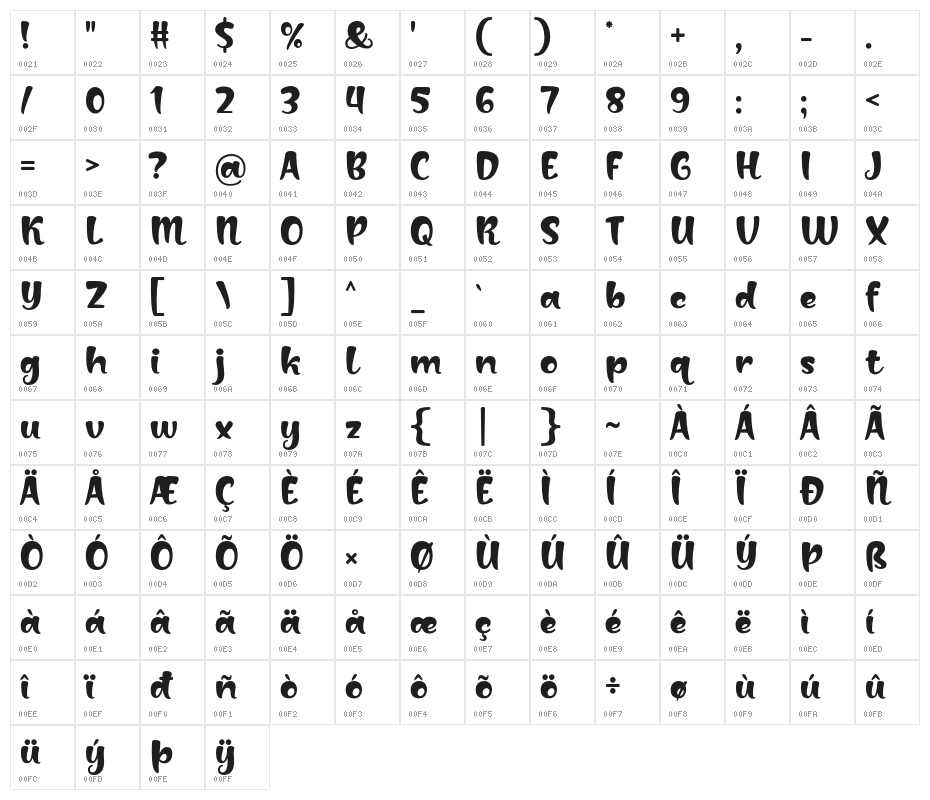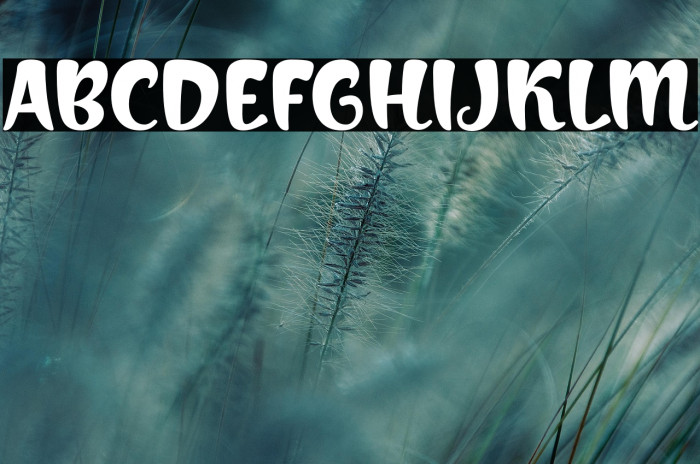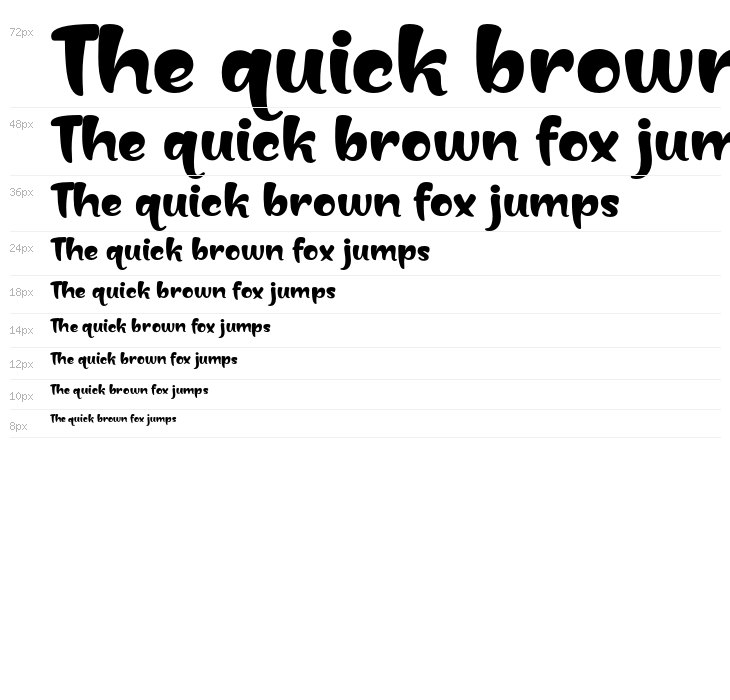
Baligle Font
Baligle Description
This font features a playful and bold style with rounded edges and a slightly whimsical appearance. The characters are thick and have a consistent weight throughout, giving them a strong presence. The uppercase and lowercase letters maintain a uniformity that enhances readability while adding a touch of fun. The numbers and special characters are designed to match the overall playful aesthetic, making them suitable for creative and informal projects. The font's unique style is characterized by its smooth curves and friendly look, making it ideal for designs that aim to convey warmth and approachability.
| Overall Style | Playful |
| Proposed Projects | Ideal for children's books, playful branding, greeting cards, and creative posters. |